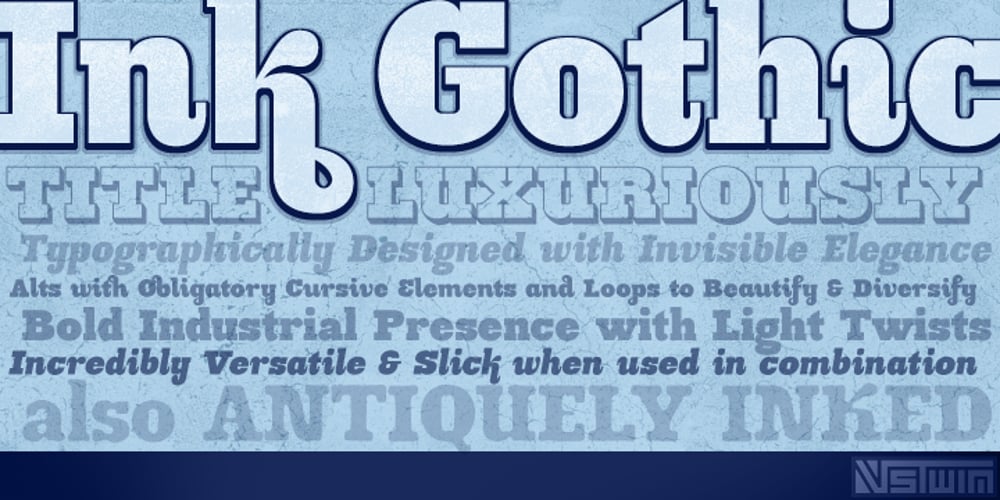
Ink Gothic
Ink Gothic font
Ink Gothic Font Family was designed by Brian J. Bonislawsky, Brian Jaramillo and published by VersusTwin. Ink Gothic contains 8 styles and family package options. Ink Gothic is a contemporary slab serif with a split personality – a mix of heavy industrial with light typographic twists. Unique letterforms evolve the typeface into a class all its own. The Ink Gothic Alt styles add italic letter-styling and cursive loop appeal to the lowercase characters, taking the more refined stylings and giving them an elegant twist adding versatility and beauty. Stylistic Alternates are available for the b & k characters. The Ink Gothic Complete package bundles all of the versatile and elegant styles of the Ink Gothic, Ink Gothic Alt, Ink Gothic 3D, and Ink Gothic Inked typefaces into one powerhouse of a collection.